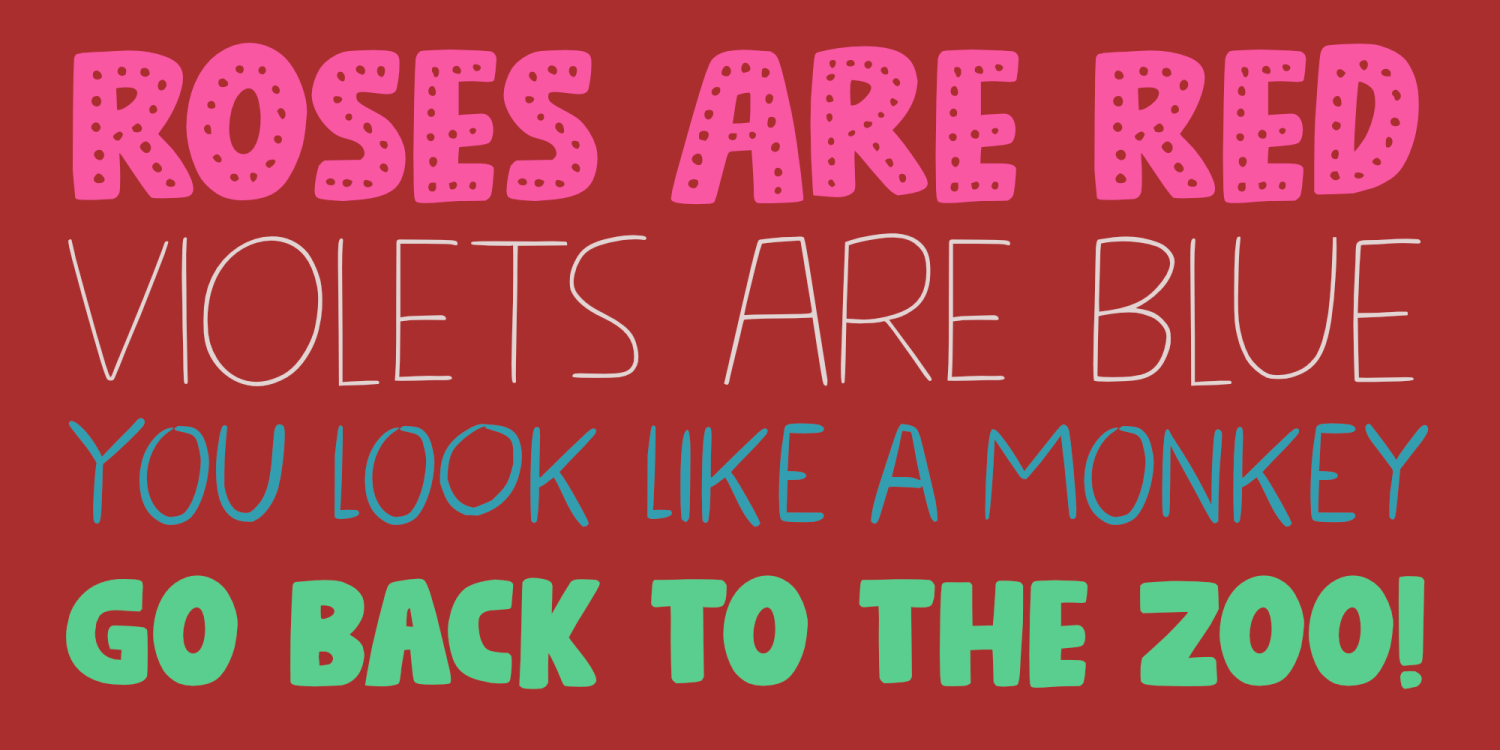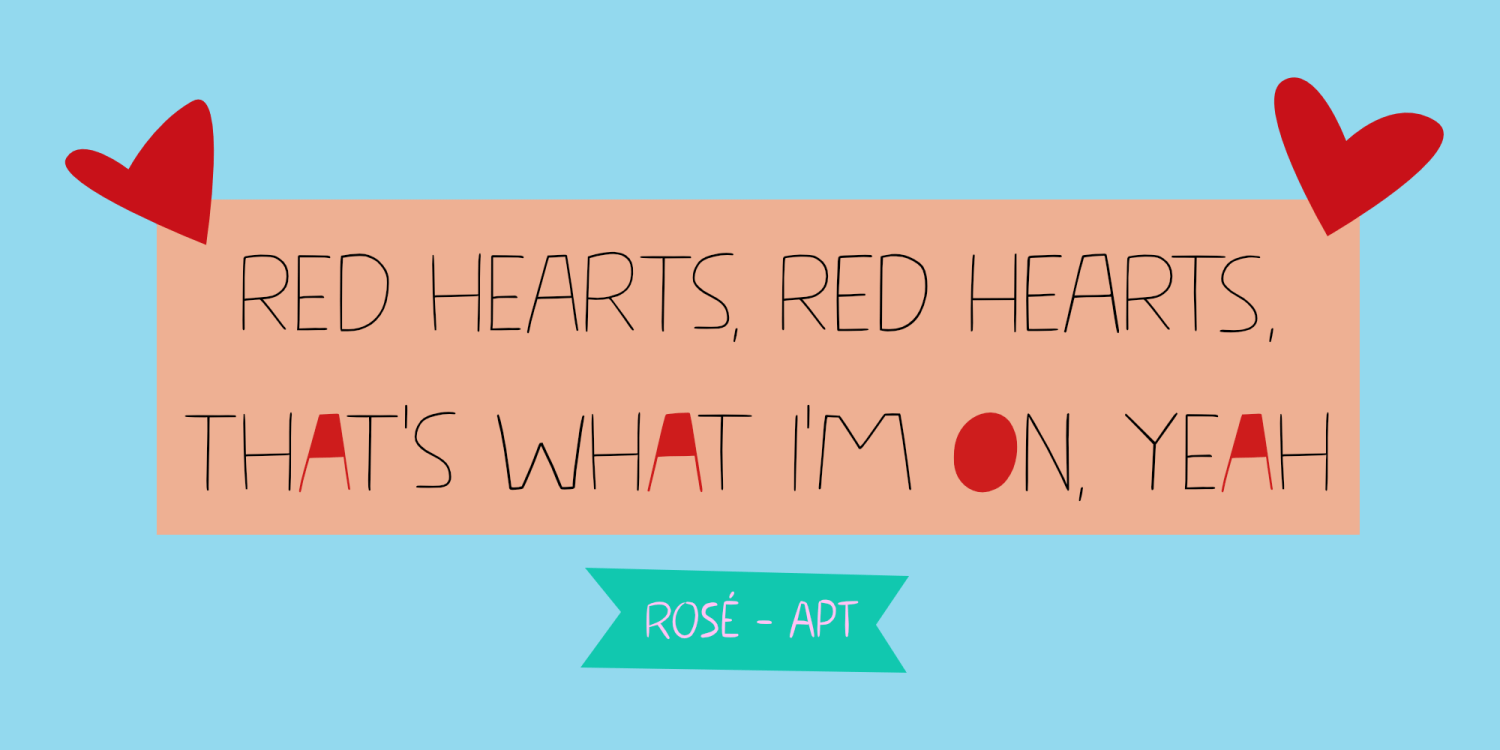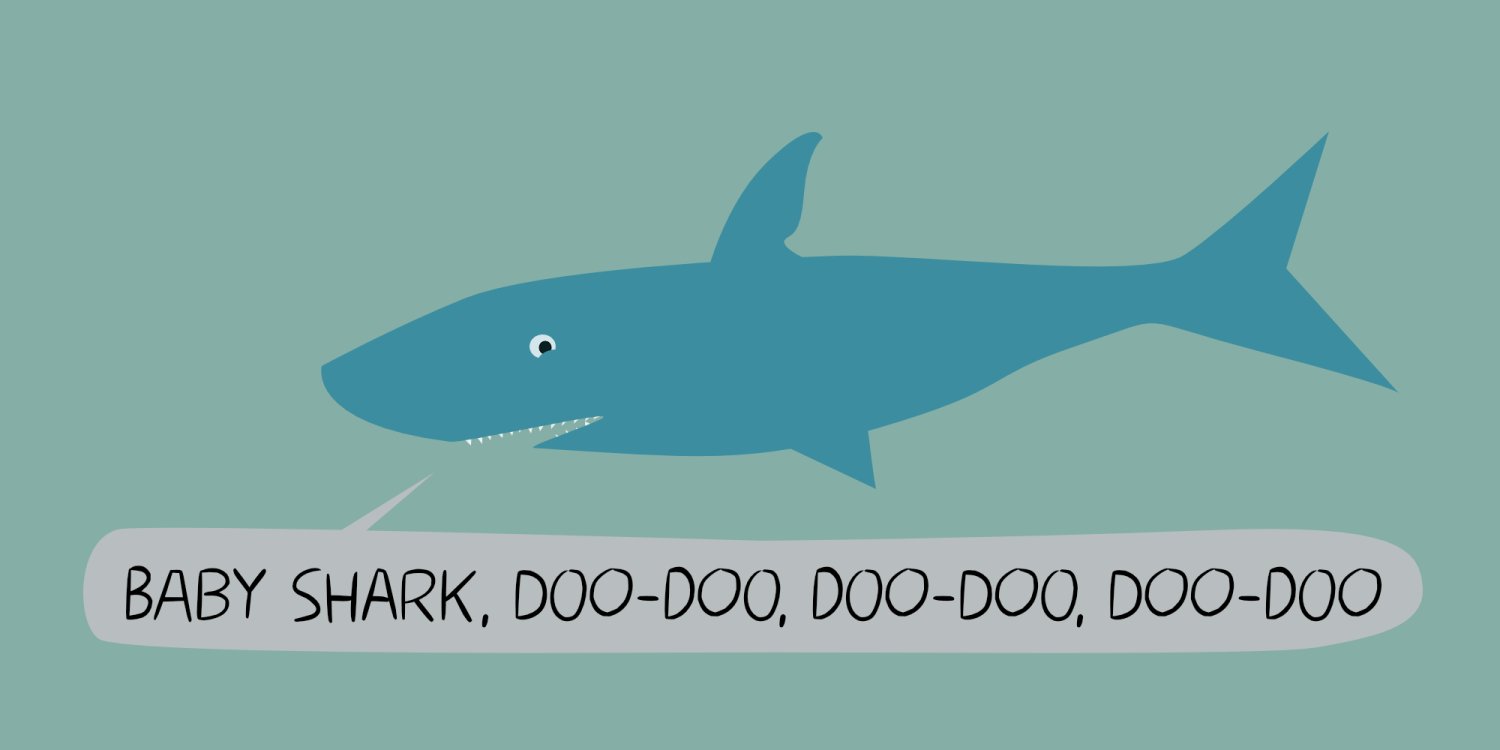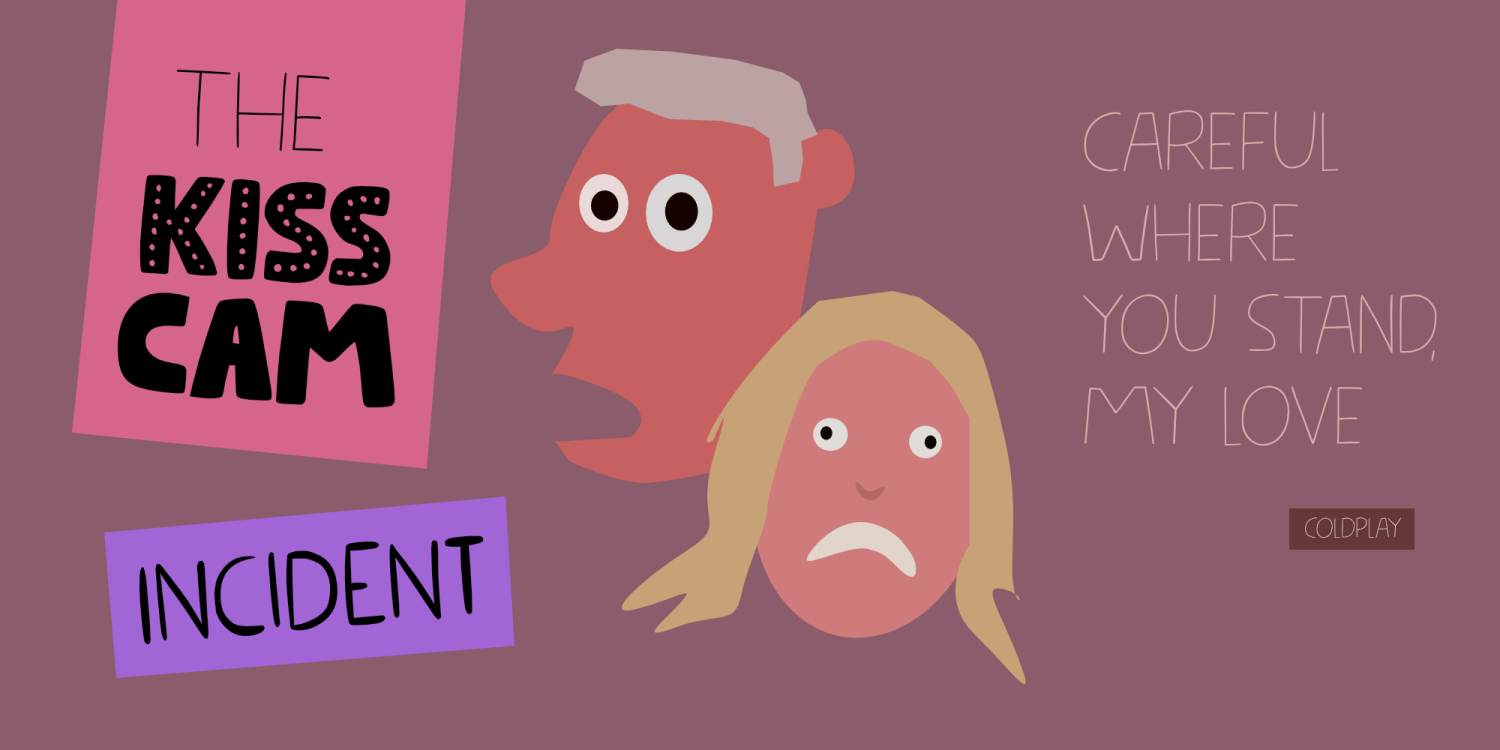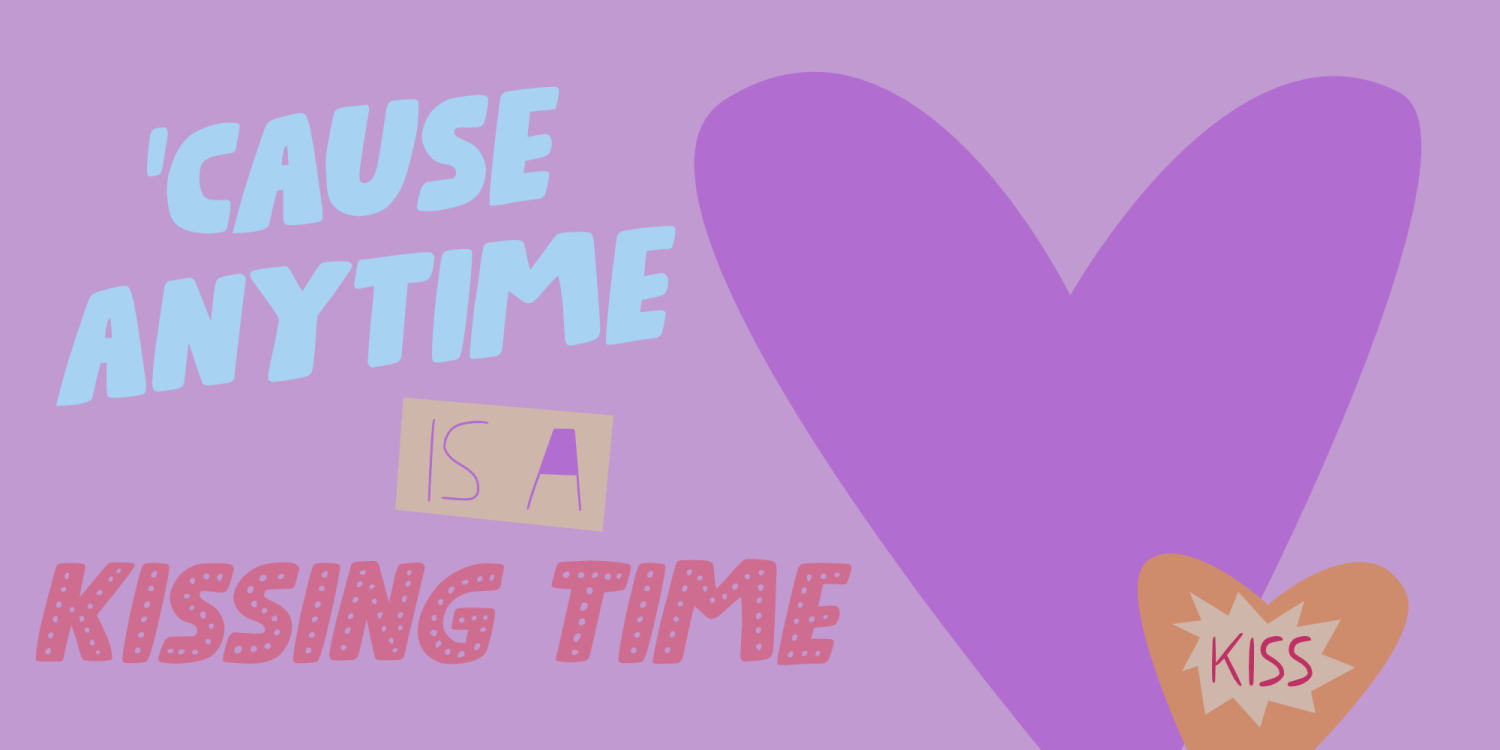
Kissy Face
Music-wise, this year has been the ‘APT’ year. My daughter loved that song so there was no escaping from Rosé and Bruno…. I decided to name this font after a line in the lyrics and if you have kids, you will know which one that is.
Kissy Face is a nice, handmade font family. It consists of 5 separate fonts - in regular and Italic styles - that work together like the above mentioned artists.  So, start singing and use this lovely font family for your projects!